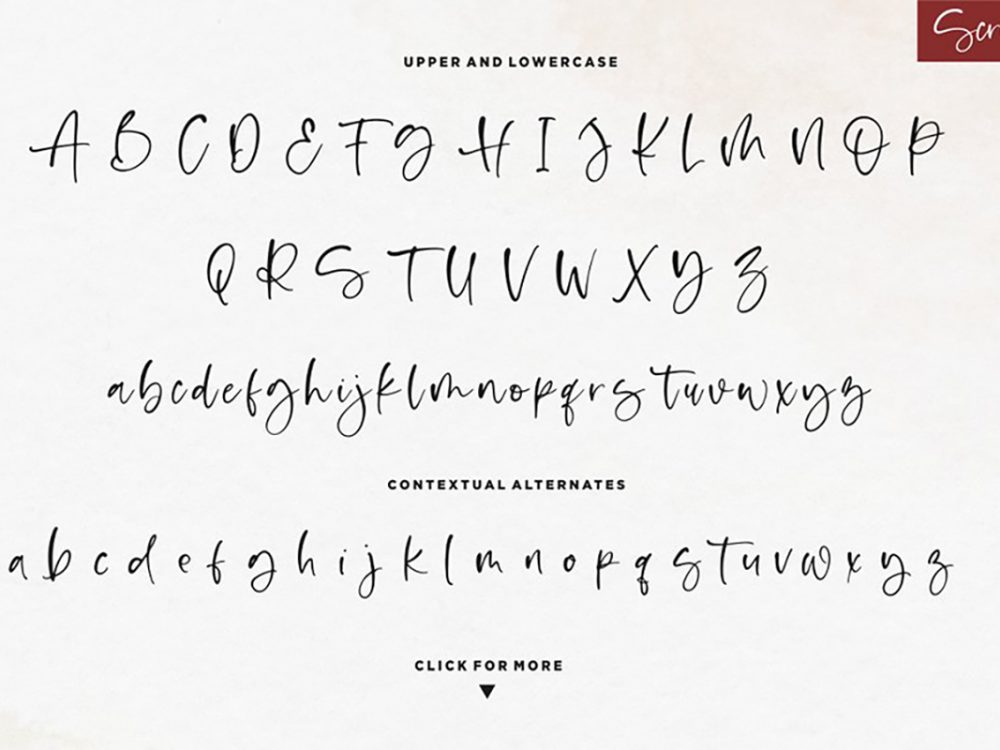
Shelma and Hugie Font Duo
Shelma and Hugie Font Duo is a beautiful interesting modern handwritten font that features an elegant style and a full set of upper and lower case letters. You can use this kit to create memorable design projects that require a scripted font. These can be posters, wedding invitations, branding, advertisements, flyers, prints, and more. If you wish to access more features and use them for commercial work please buy the full version.